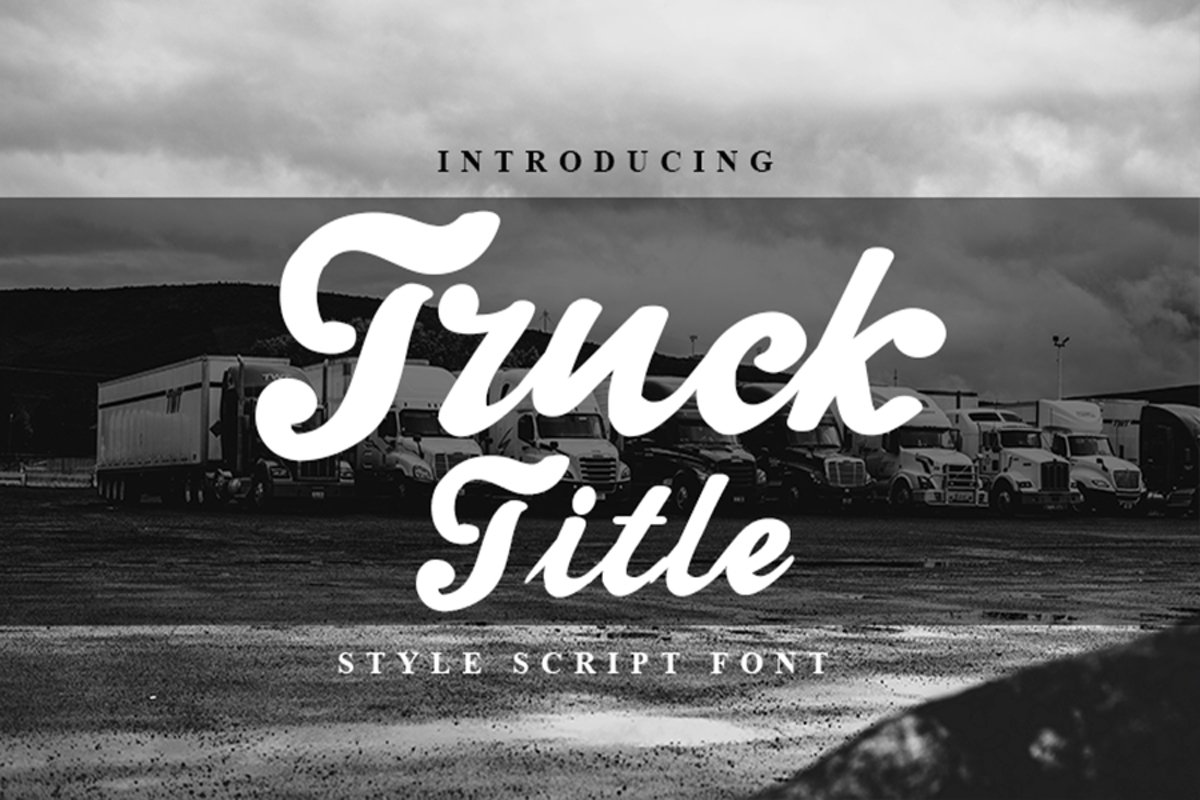
Truck Title Font
Truck Title
Truck Title is a cute and casual handwritten font with an incredibly friendly feel. Whether it’s for web, print, moving images or anything else – Truck Title will look spectacular.
+More than 100+ Glyphs
+PUA-Encoded for many alternates and ligatures